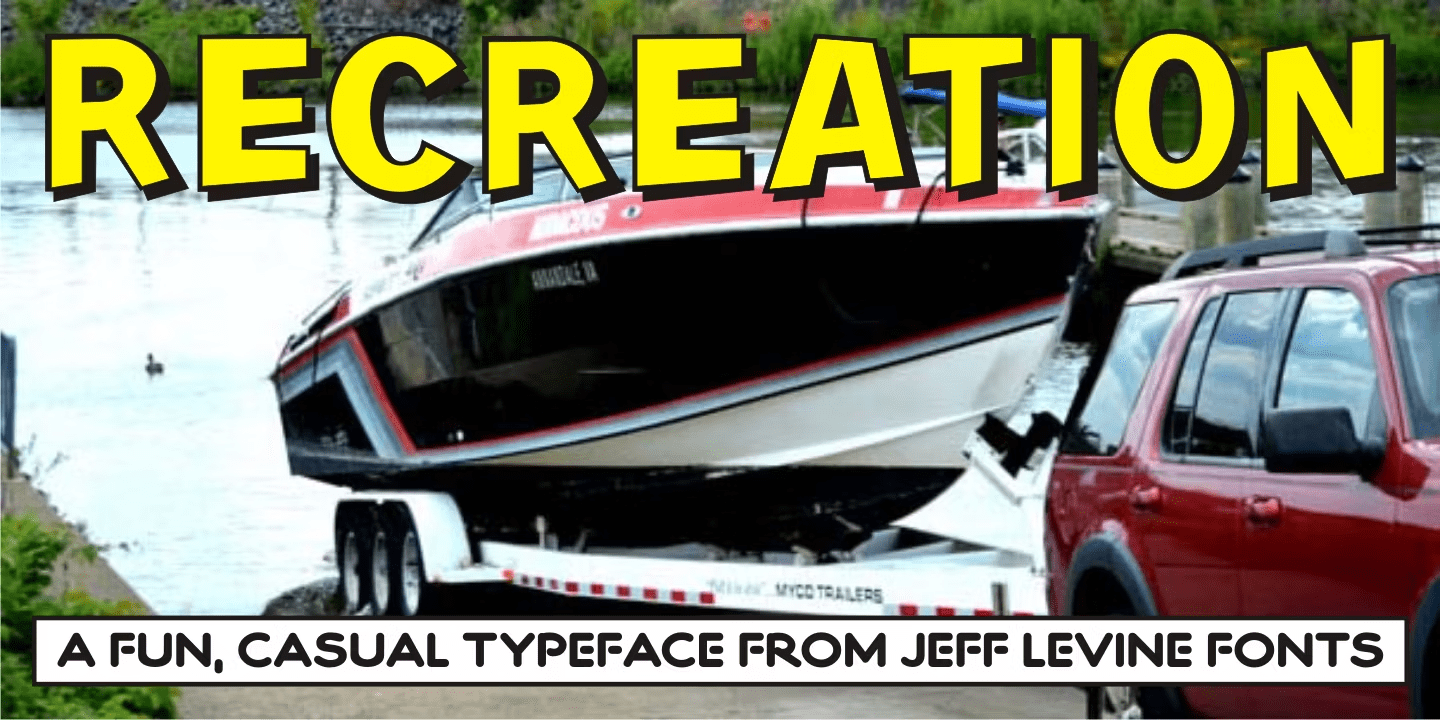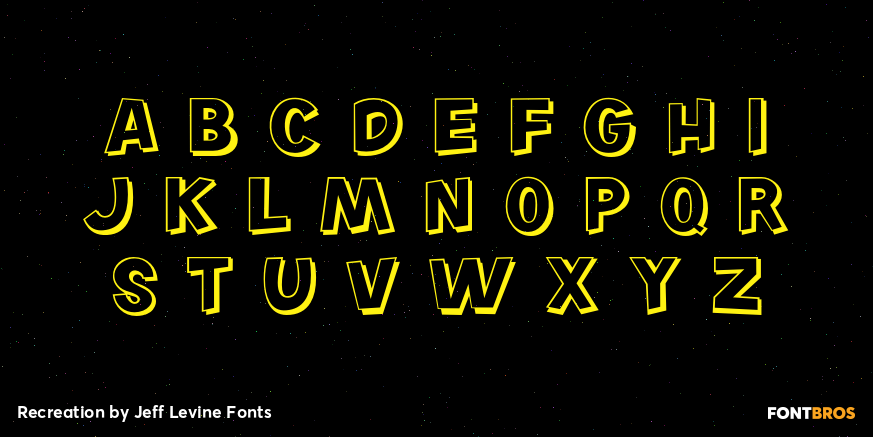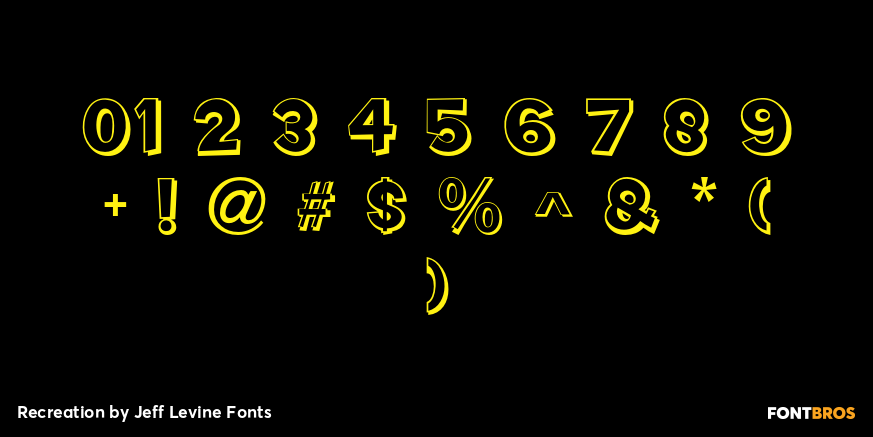
Recreation
Recreation JNL is Jeff Levine's own take on a popular vintage typeface from the late 50s or early 60s that's seen a resurgence in recent years. While the basic alphabet is somewhat modeled from the classic design, all the other characters in the font are original.